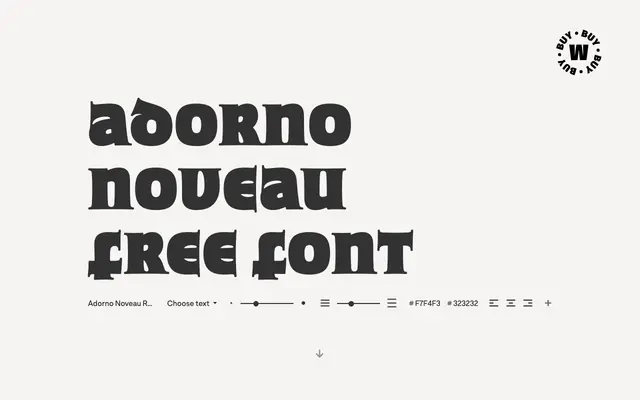
Adorno Noveau
An experimental display face that splices a humanist sans skeleton with Uncial, Gaelic and Copperplate influences, available as a free personal-use download.
Adorno Noveau draws on glyphic typefaces as a starting point before steering towards Uncial and Gaelic letterforms, layering in Copperplate details over a humanist sans-serif structure. The family ships in two styles: a standard Regular and a Borders variant, both in a single weight. Available under a personal-use licence covering one desktop and limited social media reach.
Adorno Noveau blends a humanist sans skeleton with glyphic, Uncial and Gaelic letterform references and Copperplate details, placing it firmly in the experimental display category rather than any conventional text classification.